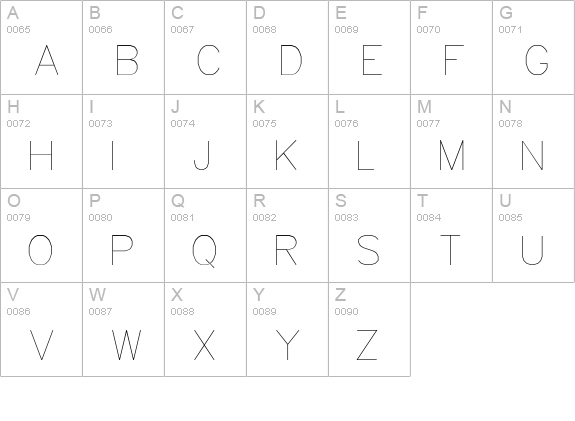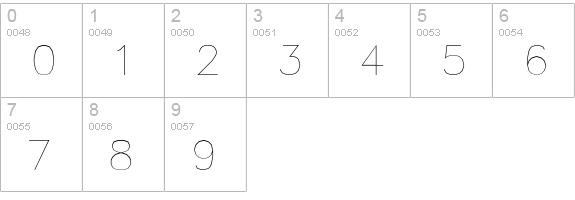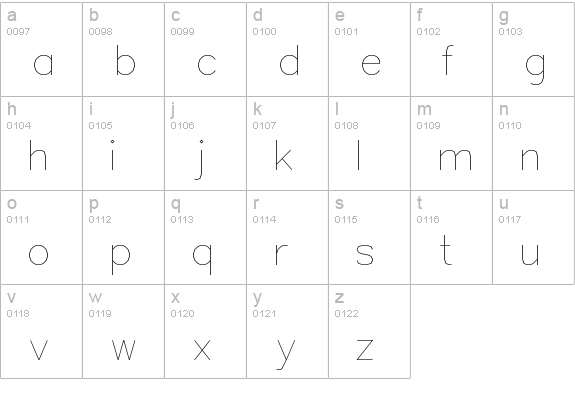
Simplex Font Details
Simplex is a modern and versatile font that effortlessly combines elegance with simplicity. Its clean and minimalistic design makes it perfect for a wide range of projects, from logo designs to website headers and everything in between. With its sleek and balanced letterforms, Simplex exudes a sense of professionalism and sophistication that is sure to elevate any design. This font is not only visually stunning, but it also offers great functionality. The legibility of the characters ensures that your message will be easily understood, whether it is displayed on a small business card or a large billboard. The carefully crafted spacing and kerning make for a smooth reading experience, further enhancing the overall aesthetic appeal. One of the most appealing aspects of Simplex is that it is available for free. You can download this incredible font without any cost at FontsMarket.com. This means that you can enjoy all the benefits of this remarkable typeface without breaking the bank. It is a rare opportunity to access such high-quality design resources without spending a dime. Whether you are a professional designer looking to add a versatile font to your collection or a beginner starting out in the world of graphic design, Simplex is the perfect choice. Its timeless design ensures that it will remain relevant and stylish for years to come. So why wait? Take advantage of this amazing offer and download Simplex for free at FontsMarket.com and bring your designs to life with elegance and simplicity.